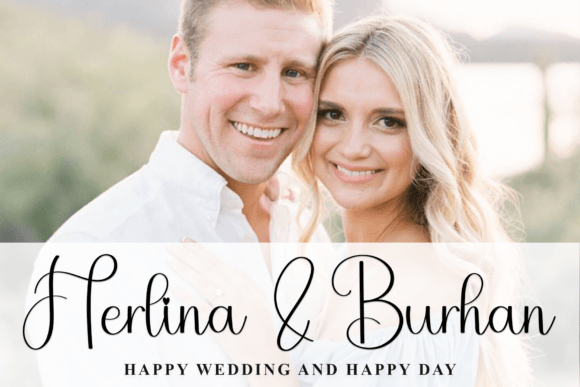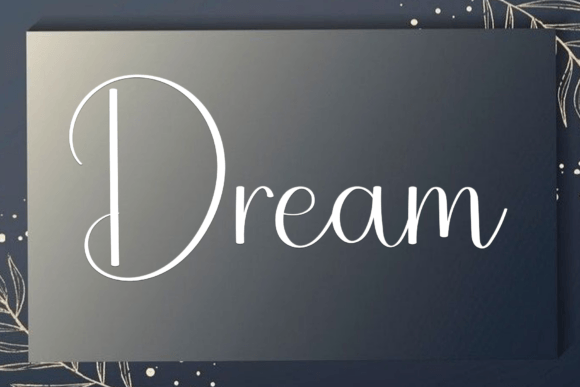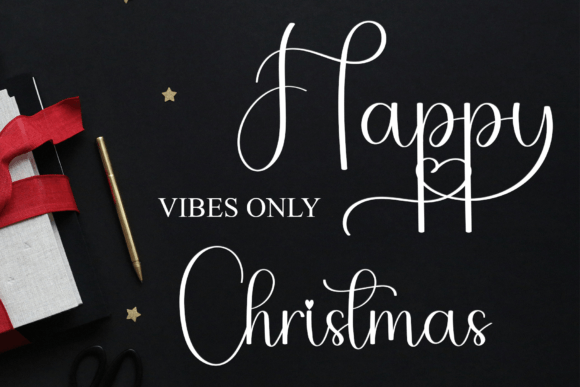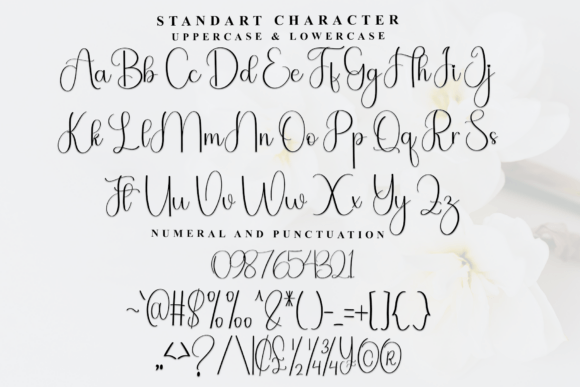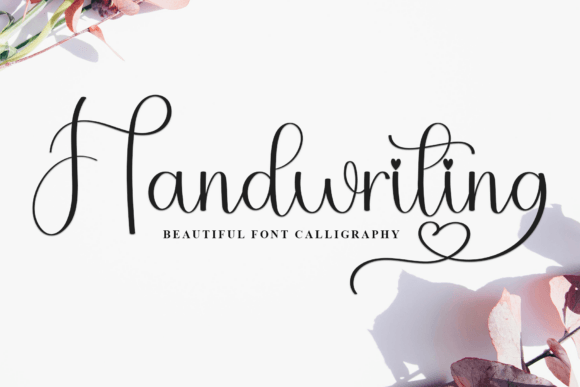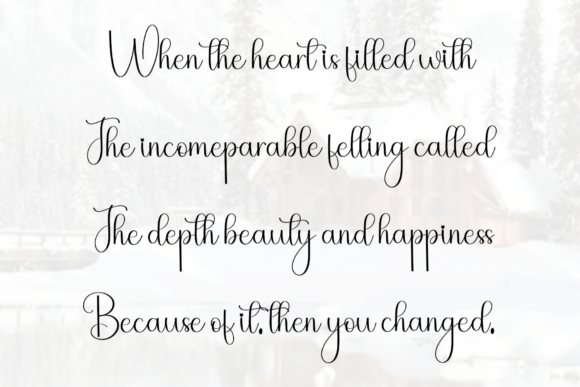
Unwrap the Magic of the Barbie Holiday Font
There’s something special about unwrapping a present on a holiday morning, isn’t there? The excitement, the anticipation, the joy on a loved one’s face – it’s a moment that stays with us forever. As designers, we strive to capture that same magic in our work, to create something that brings a smile to people’s faces and makes their hearts feel a little bit lighter.
That’s where the Barbie Holiday Font comes in – a beautiful and eye-catching typeface that’s designed to add a touch of whimsy and wonder to your designs. With its soft, unique strokes and distinctive character, this font is perfect for crafting a sense of holiday cheer that’s sure to delight audiences of all ages.
Key Features of Barbie Holiday Font
• Unique Characteristics: The Barbie Holiday Font features a festive and playful design, with intricate details and ornaments, making it ideal for holiday-themed designs, packaging, and marketing materials.
• Font Style: The font includes various styles, including Regular, Italic, Bold, and Bold Italic, allowing designers to create visual hierarchy and emphasis in their designs.
• Character Set: The font includes a comprehensive character set, including uppercase and lowercase letters, numbers, punctuation marks, and special characters, making it suitable for use in a wide range of design applications.
Designer Review: Barbie Holiday Font
Overall, the Barbie Holiday Font is a unique and festive font that captures the essence of the holiday season. Here are some aspects that I think work well:
• ✨ Whimsical feel: The font has a charming, playful quality to it that makes it perfect for creating festive invitations, greeting cards, and social media posts.
• ✨ Variety of styles: The font comes in multiple styles, including bold, regular, and italic, which provides a lot of flexibility for designers.
• ✨ Perfect for holiday-themed designs: The font’s festive feel makes it ideal for creating holiday-themed designs, such as Christmas, Halloween, and Thanksgiving graphics.
• ⚠️ Limited compatibility: The font may not be compatible with all operating systems or software, which could limit its use in certain design projects.
• ⚠️ Not suitable for formal designs: The font’s playful feel may not be suitable for formal designs, such as business cards or corporate reports.
Overall, the Barbie Holiday Font is a fun and festive font that’s perfect for creating holiday-themed designs. While it may have some limitations, its unique feel and versatility make it a great addition to any designer’s toolkit.
The Barbie Holiday Font is perfect for adding a touch of whimsy and playfulness to your designs. Some common use cases include:
• Children’s birthday invitations and party decorations
• Holiday cards and gift tags
• Wedding invitations and decorations
The minimum font size required to use the Barbie Holiday Font effectively is 12 points. However, we recommend using a font size of at least 18 points to ensure that the font is legible and easy to read.